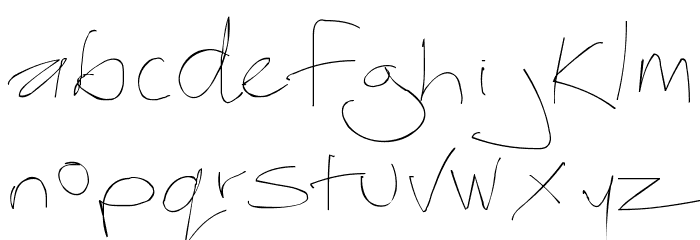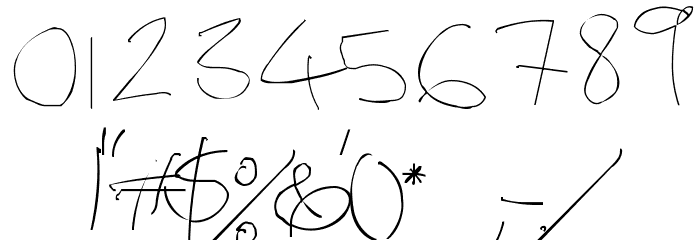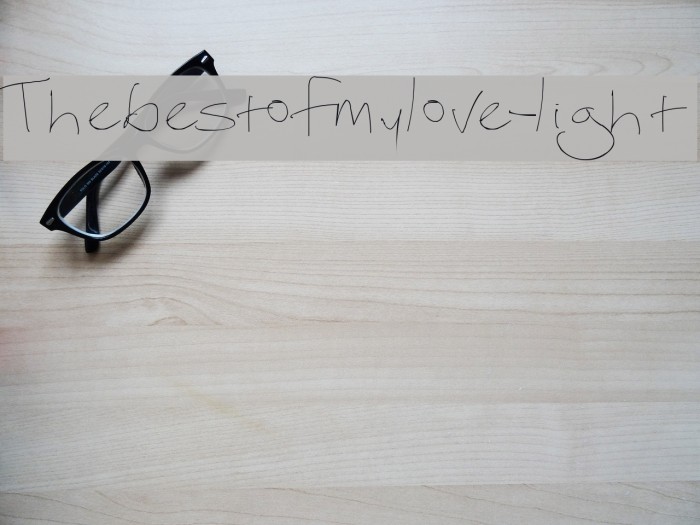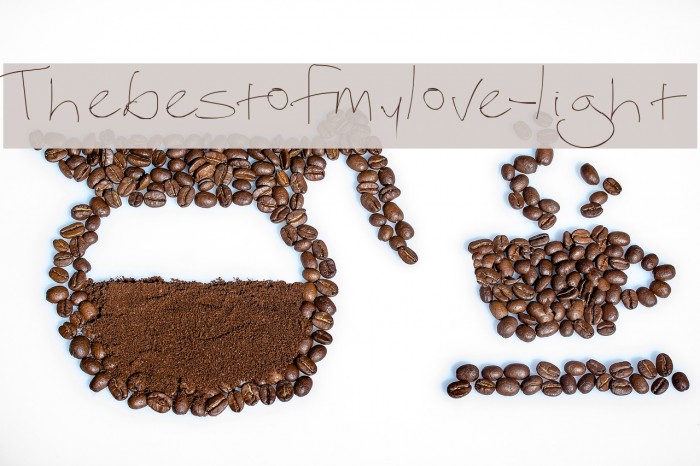
Thebestofmylove-light Font
This font exhibits a playful and casual handwritten style, characterized by its irregular and spontaneous strokes. The letters are unevenly sized and spaced, giving it a dynamic and informal appearance. The uppercase and lowercase letters maintain a consistent flow, with some characters featuring exaggerated loops and curves, adding to its whimsical nature. The numerals and special characters follow the same lively style, ensuring a cohesive look across all glyphs. This font is ideal for projects that require a personal touch or a sense of informality, such as greeting cards, invitations, or creative branding.
A playful, casual handwritten font with irregular strokes and a whimsical style.
- Proposed Projects: Ideal for greeting cards, invitations, creative branding, and any project needing a personal touch.
- Character Spacing: Wide
- Overall Style: Casual, Playful
- Use Case: Logos, Headlines, Informal Text